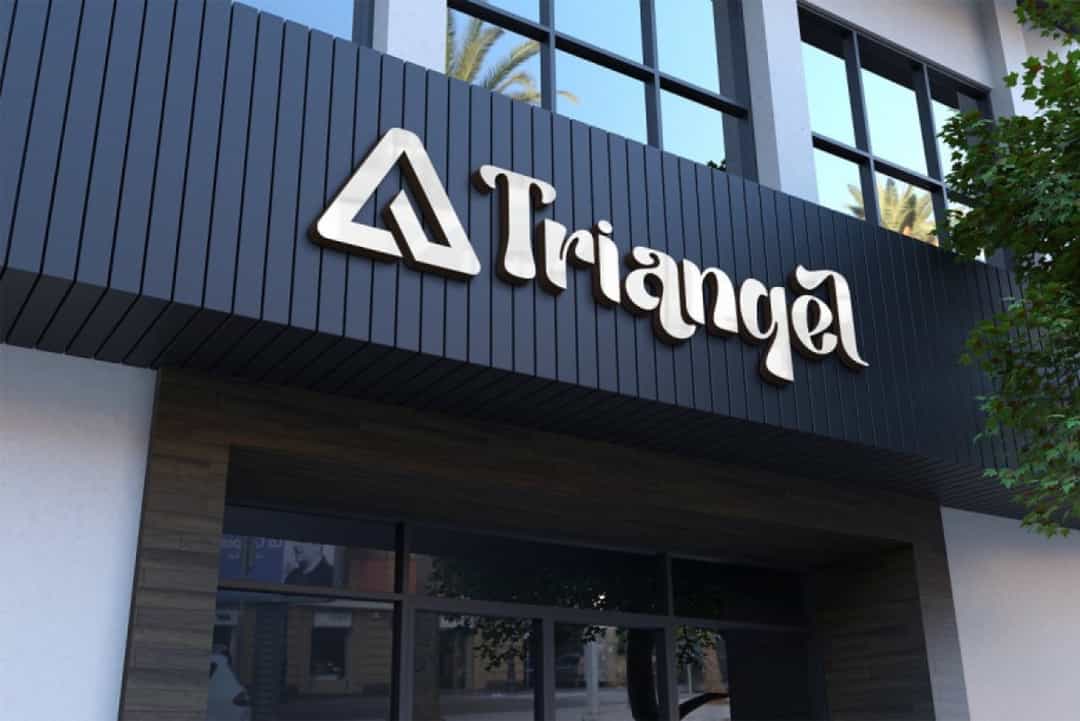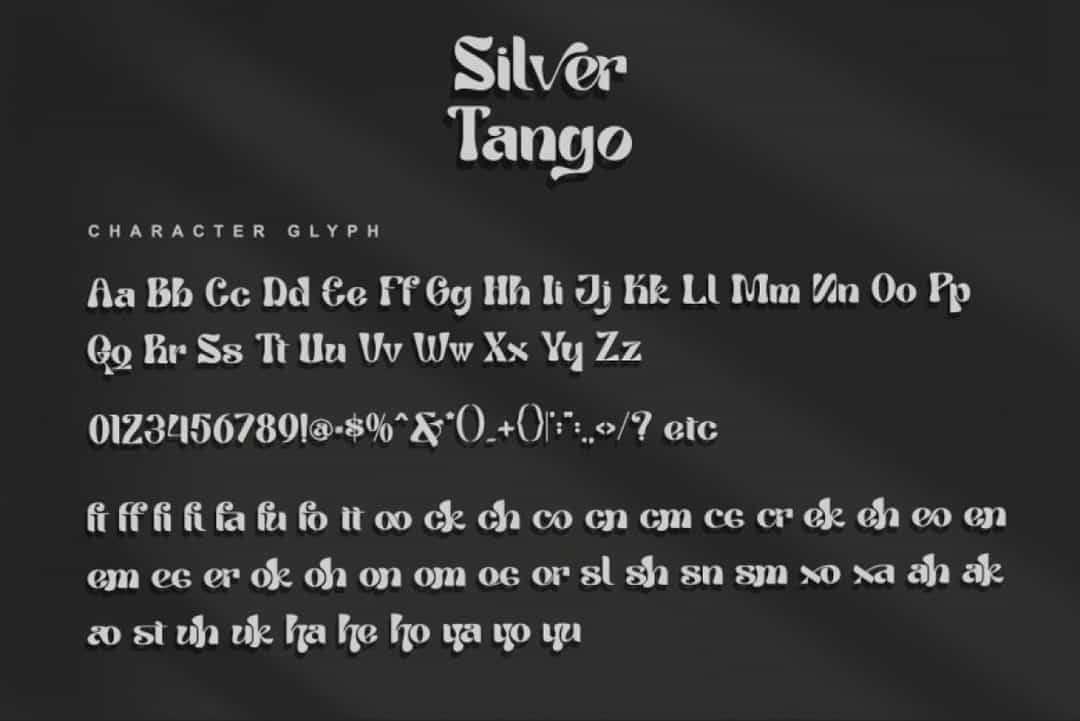
Discover Tango Silver Font, part of the Serif Display collection—a versatile and unique font perfect for adding a personal touch to your projects. Download it for free and enjoy crafting designs with style, from invitations to social media posts. This font is available exclusively for personal use, giving you the freedom to create without limits. Unlock your creativity with Tango Silver Font today!
Tango Silver is an impressive show serif font family with a distinct look. Modern yet sturdy in appearance, this font can be found used for various projects both contemporary and retro in style such as branding, crafting wedding invitations, sublimation ads from past packaging projects mood boards from past mood boards from the past packaging logotypes logotype titles editorial designs etc.